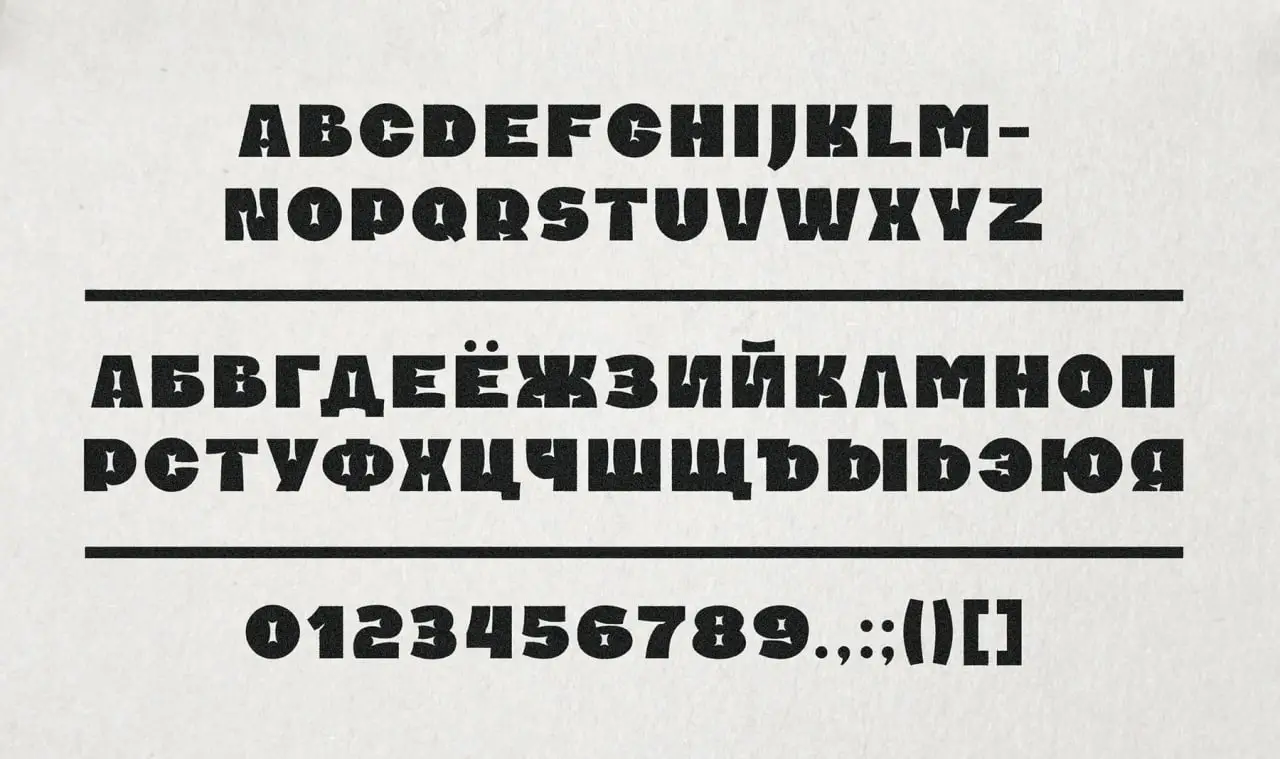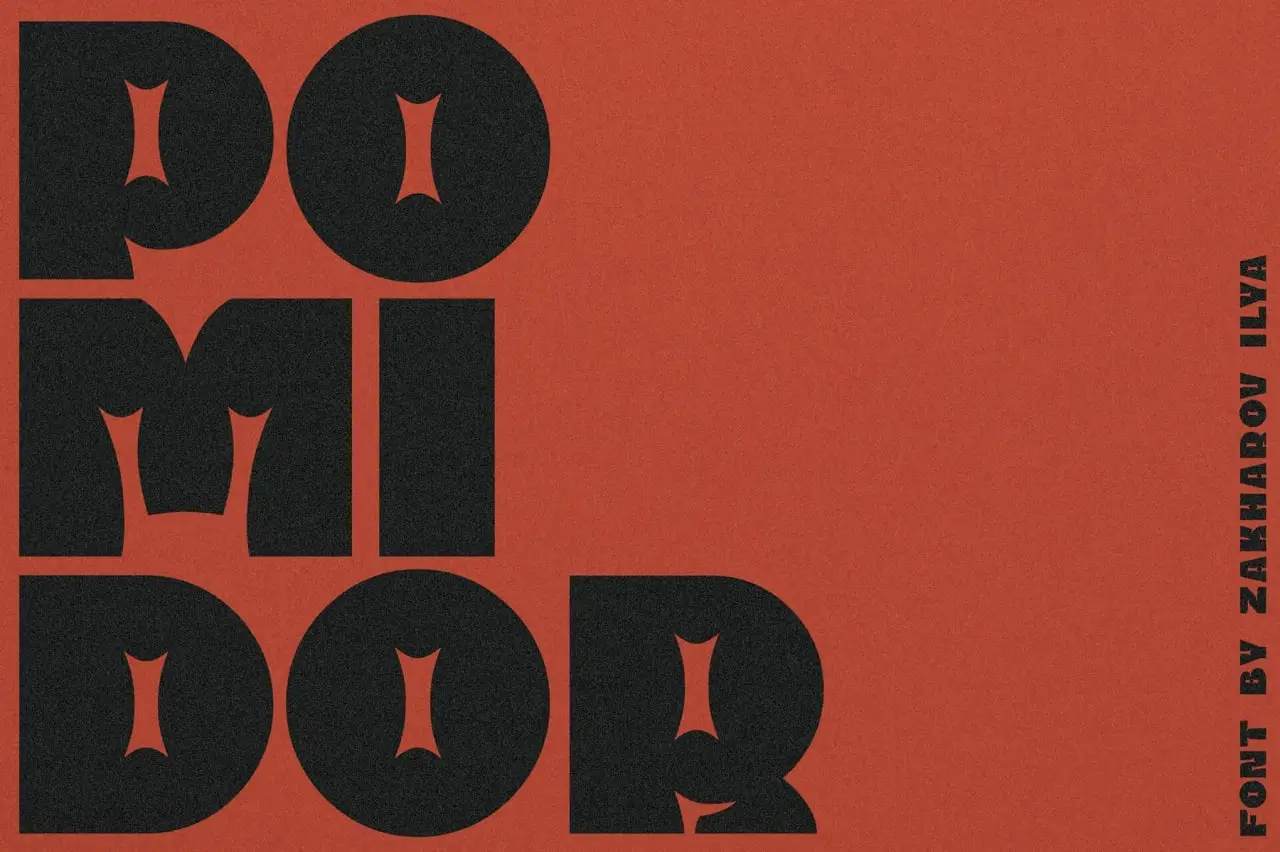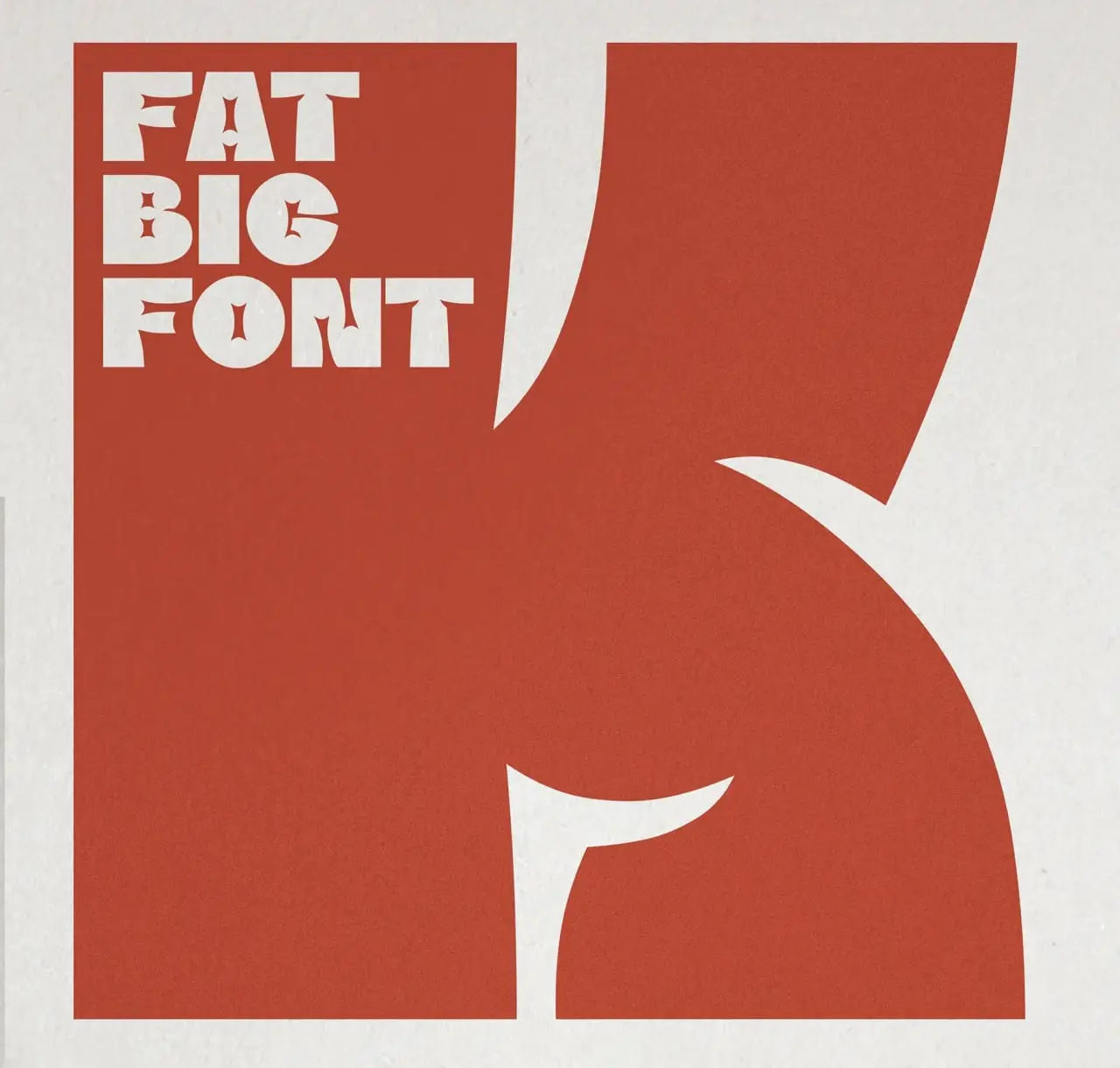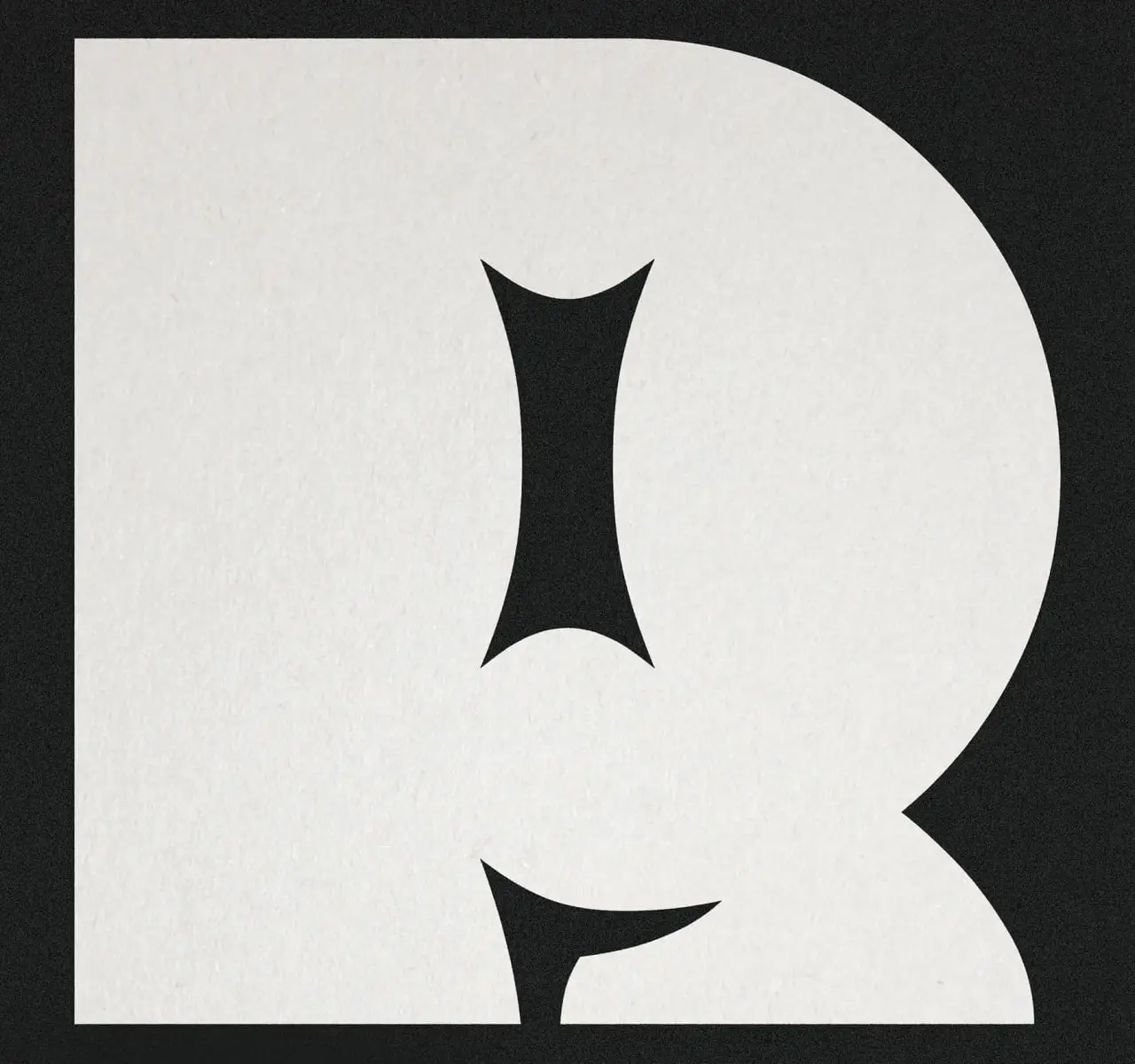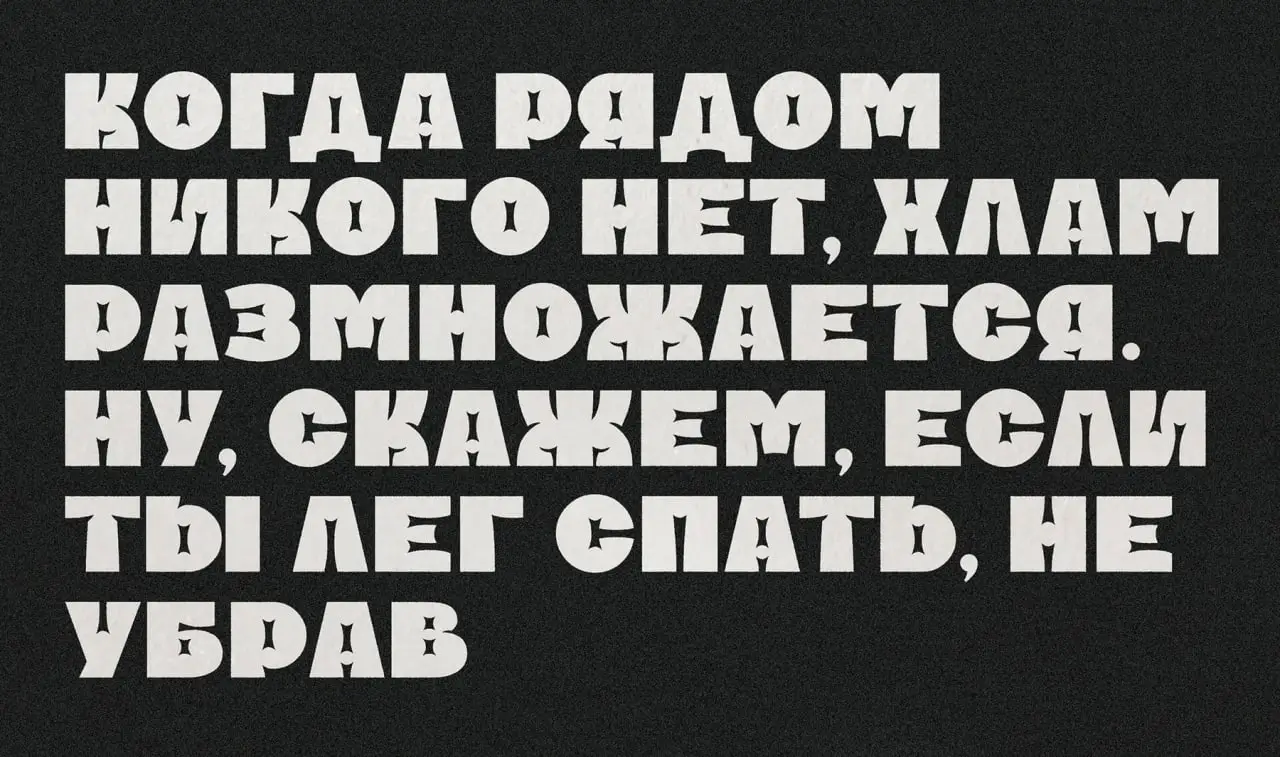
The Ilya Zakharov Pomidor Free Display Font is a unique and eye-catching typeface designed to make your projects stand out. This display font features a playful and modern aesthetic, perfect for a variety of creative applications.
Ideal for branding, logos, posters, and web design, this font can add a distinctive flair to your projects. Utilize it for headlines, promotional materials, or any creative endeavor that requires a touch of originality.